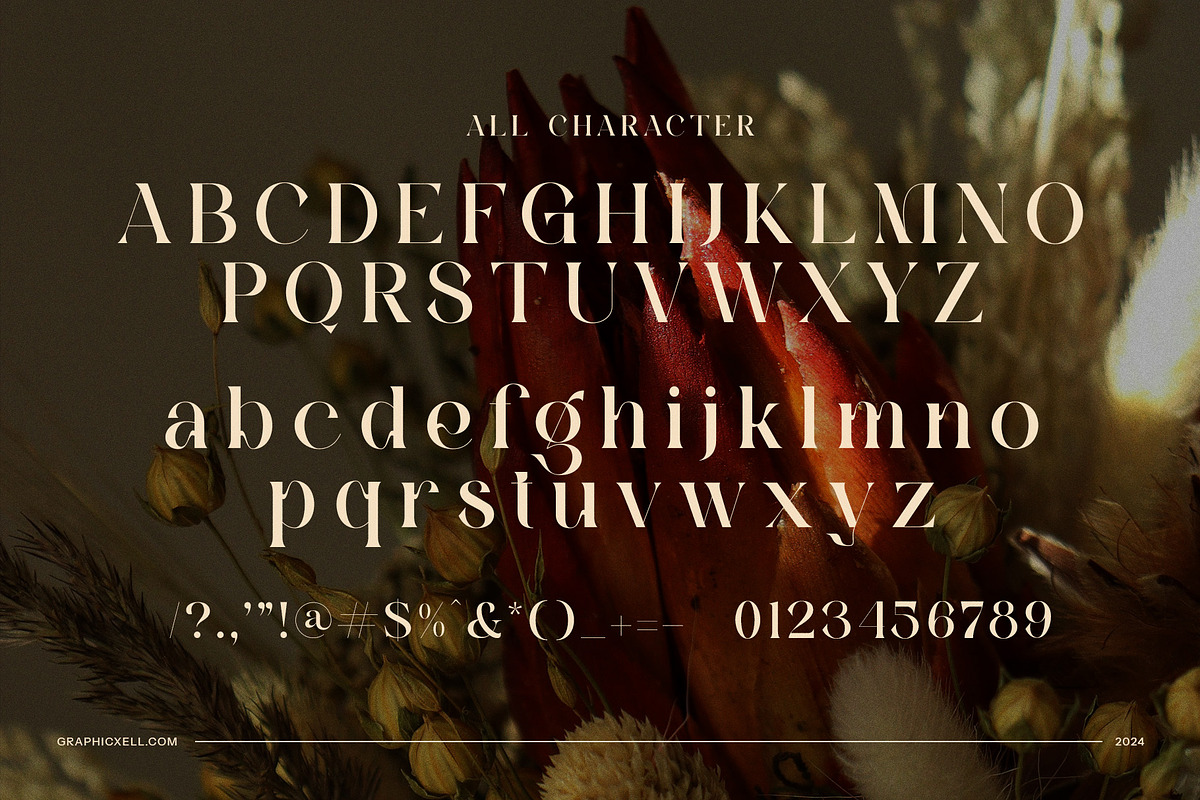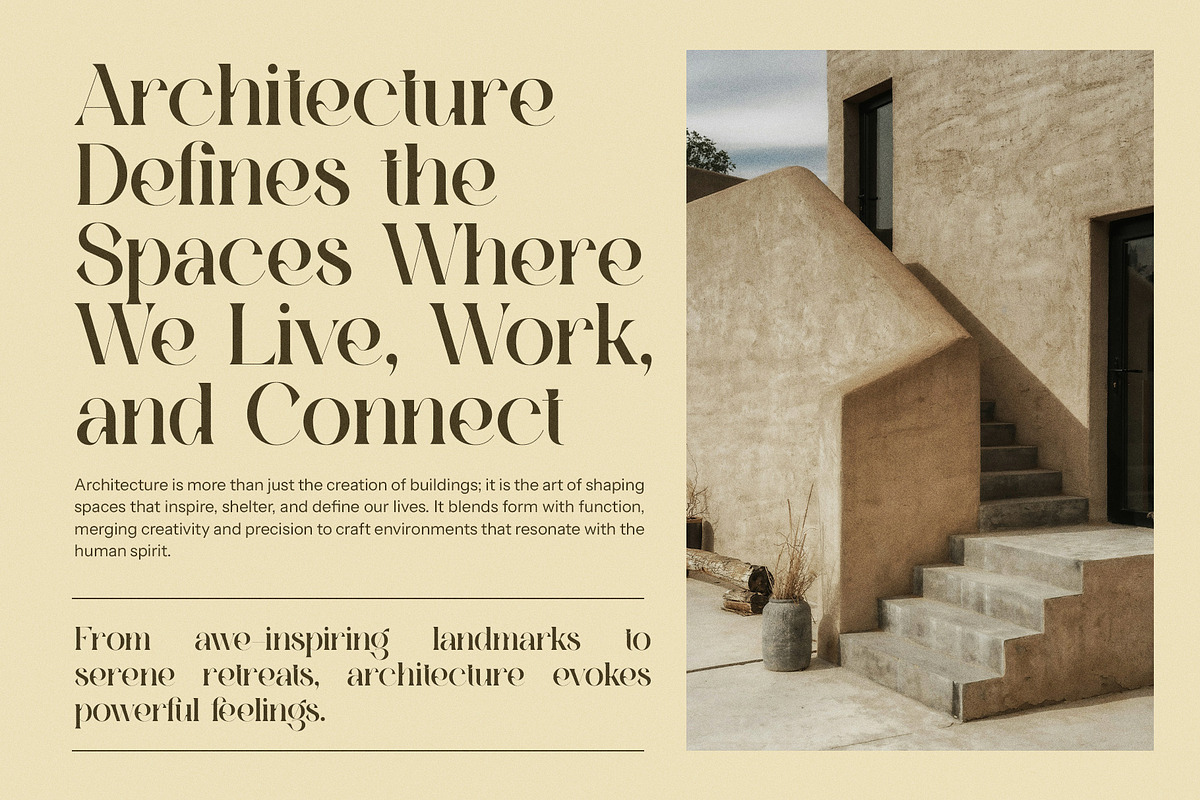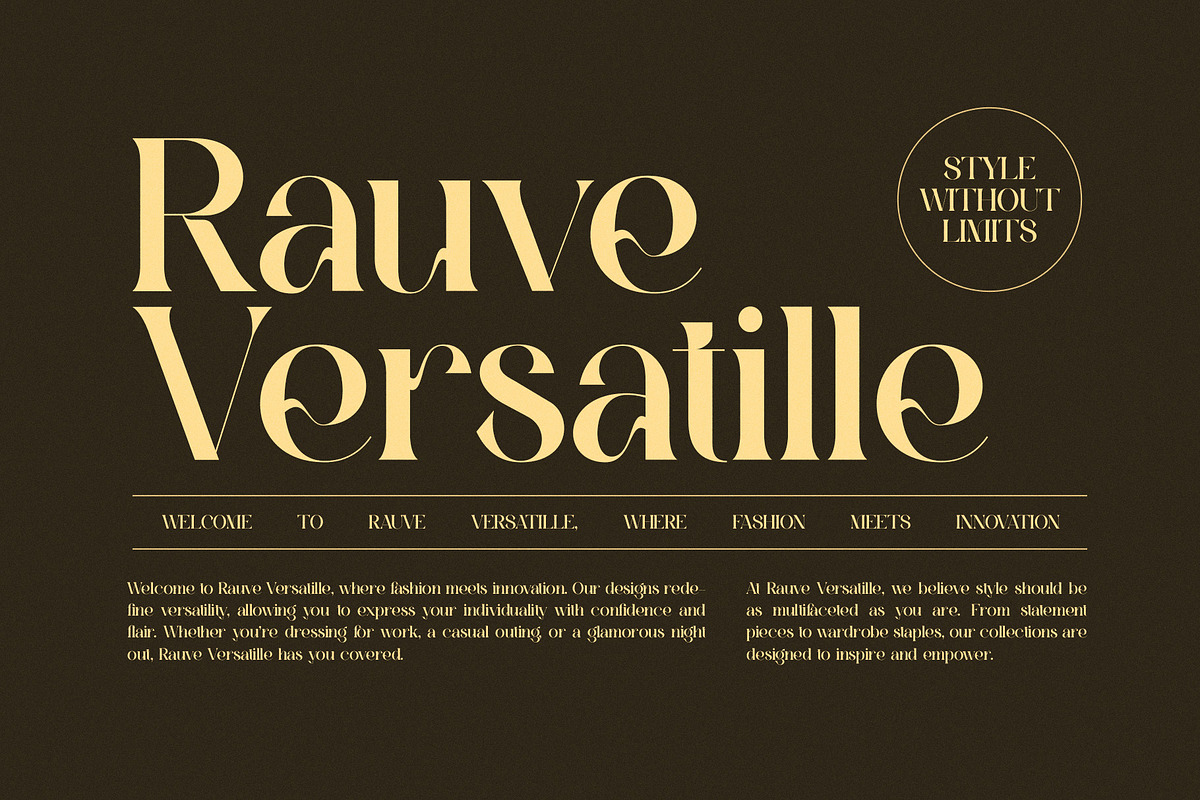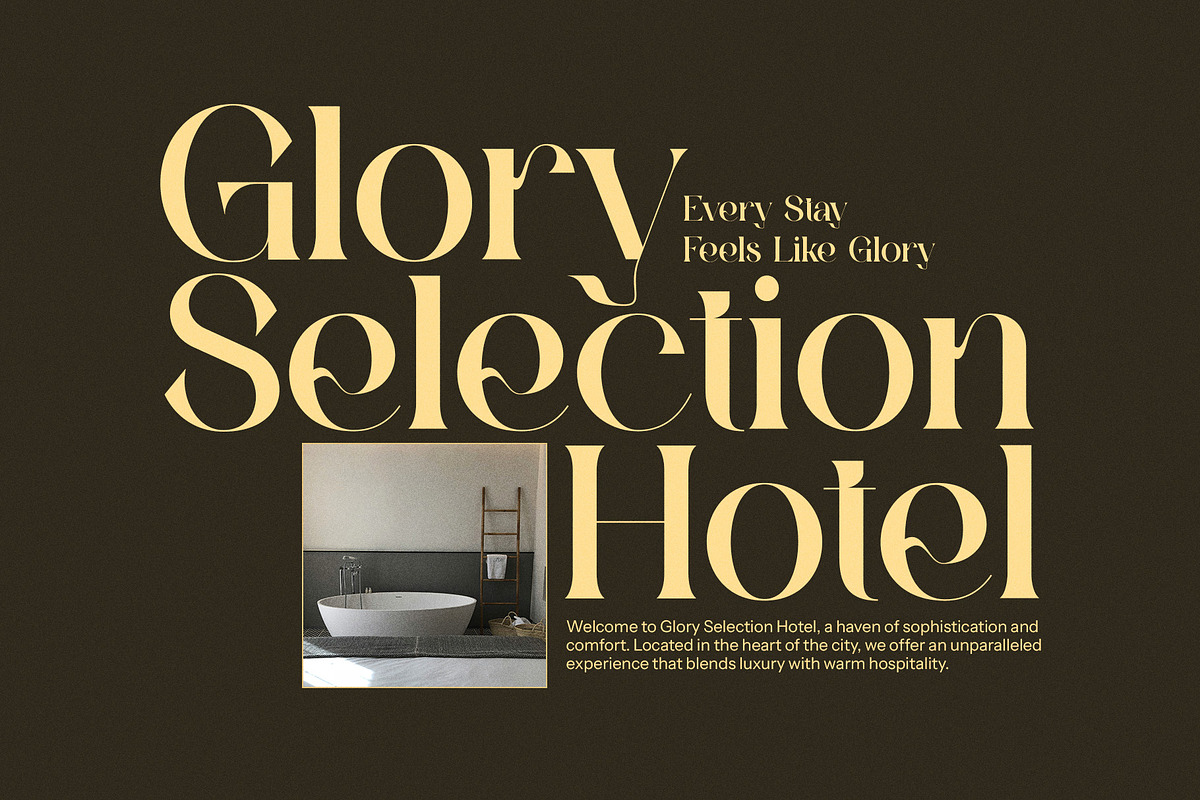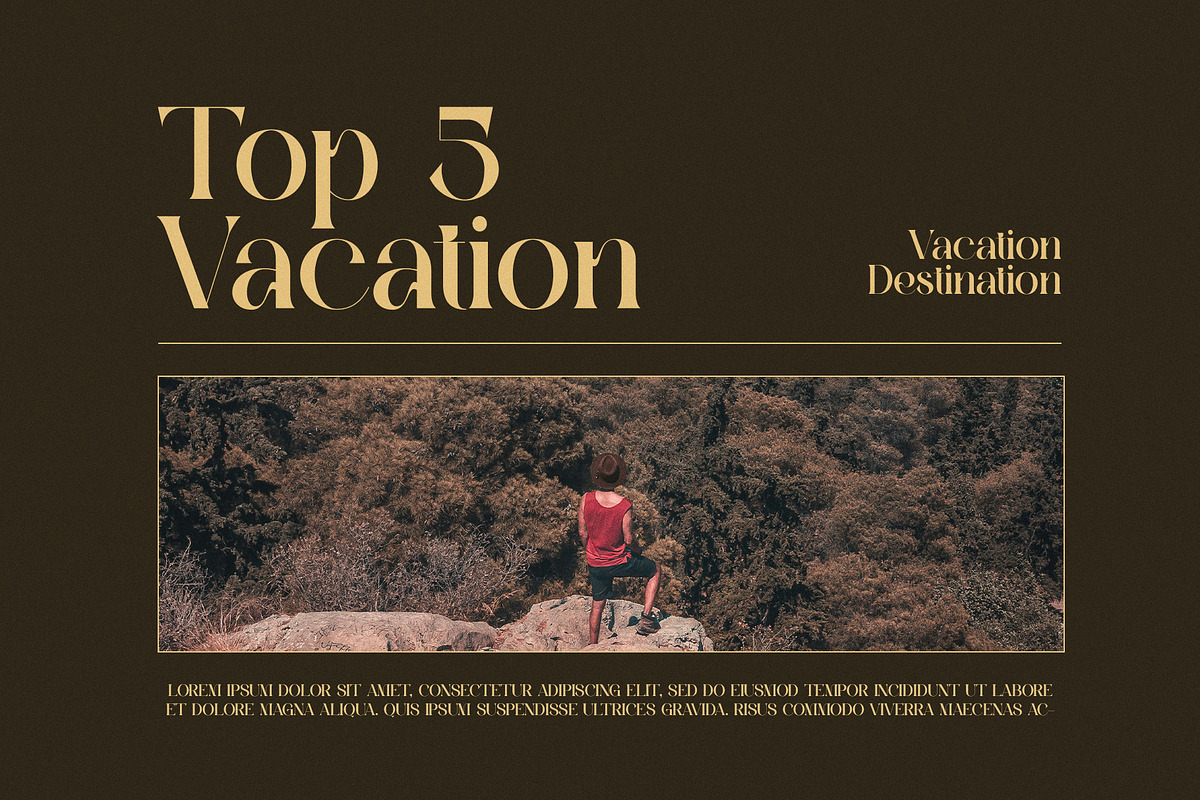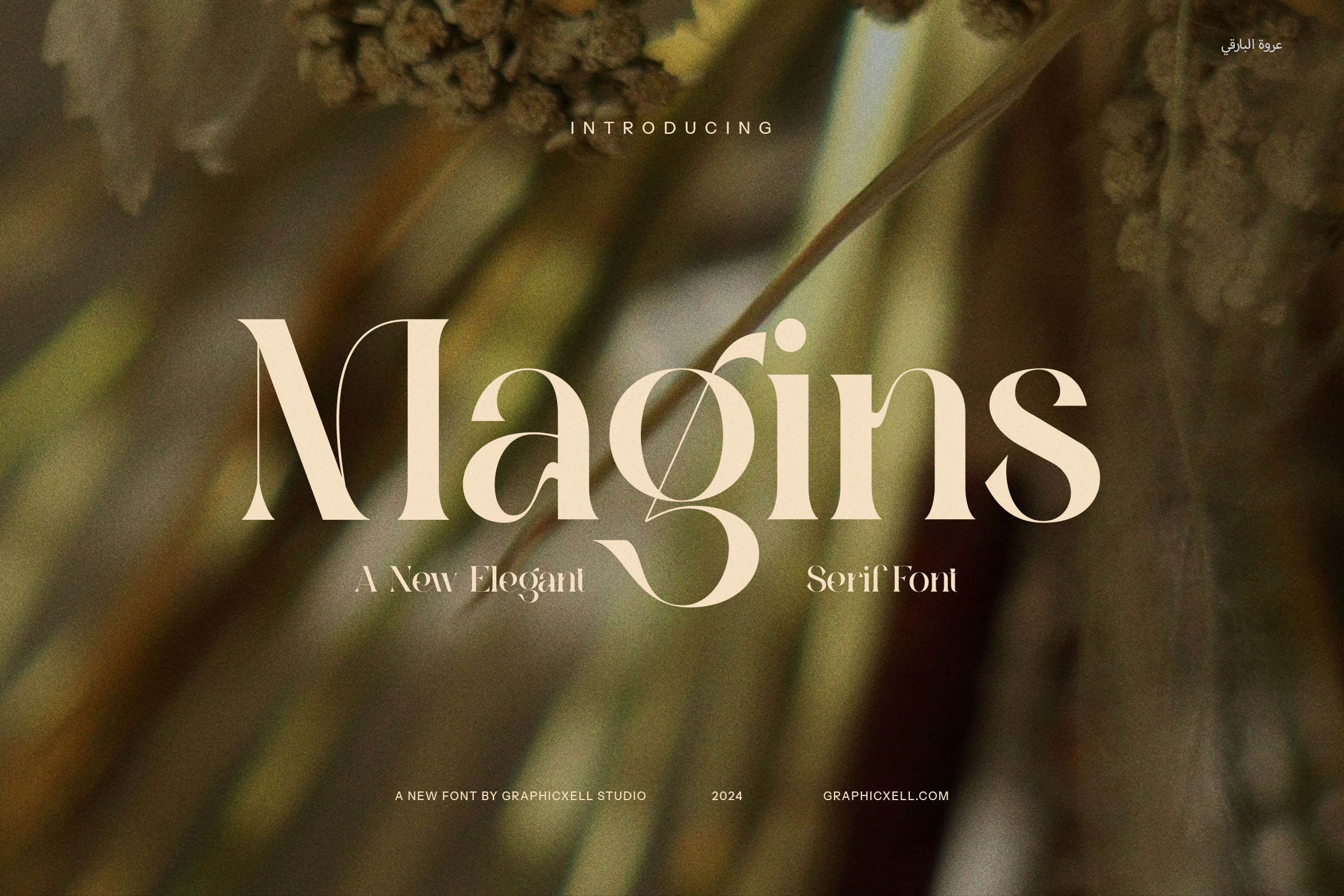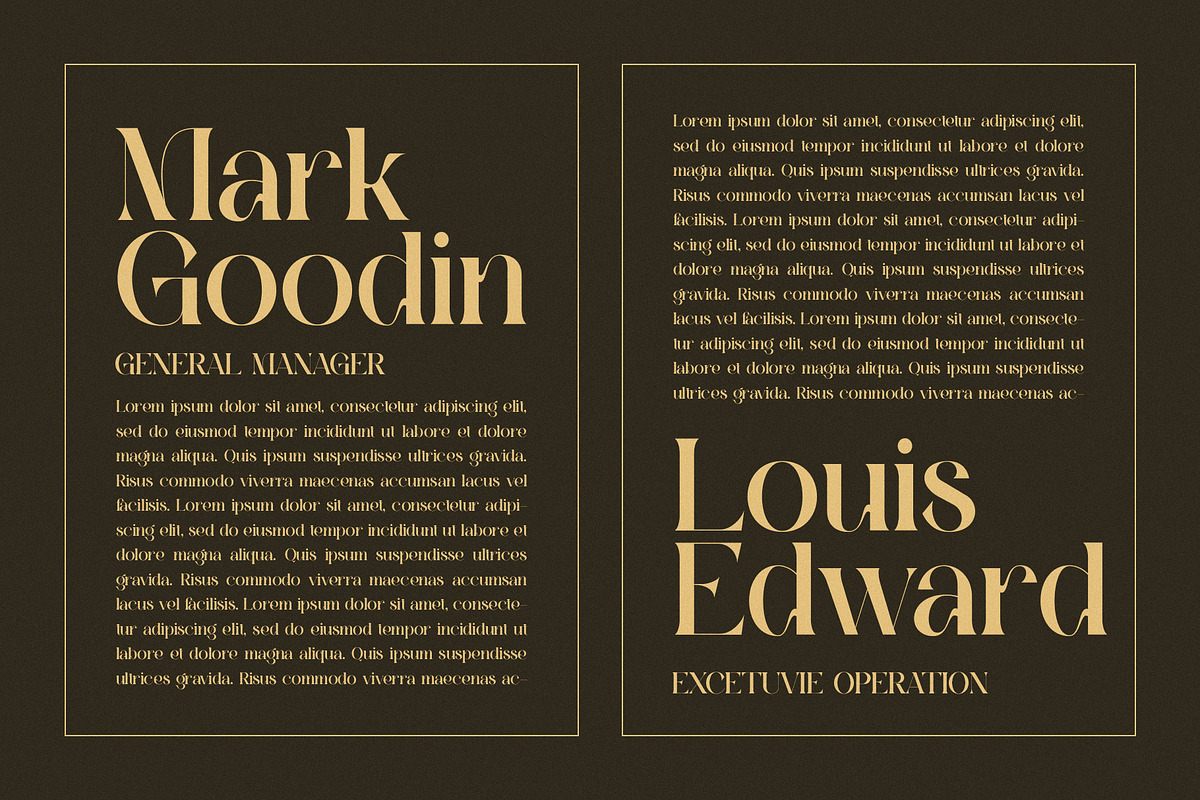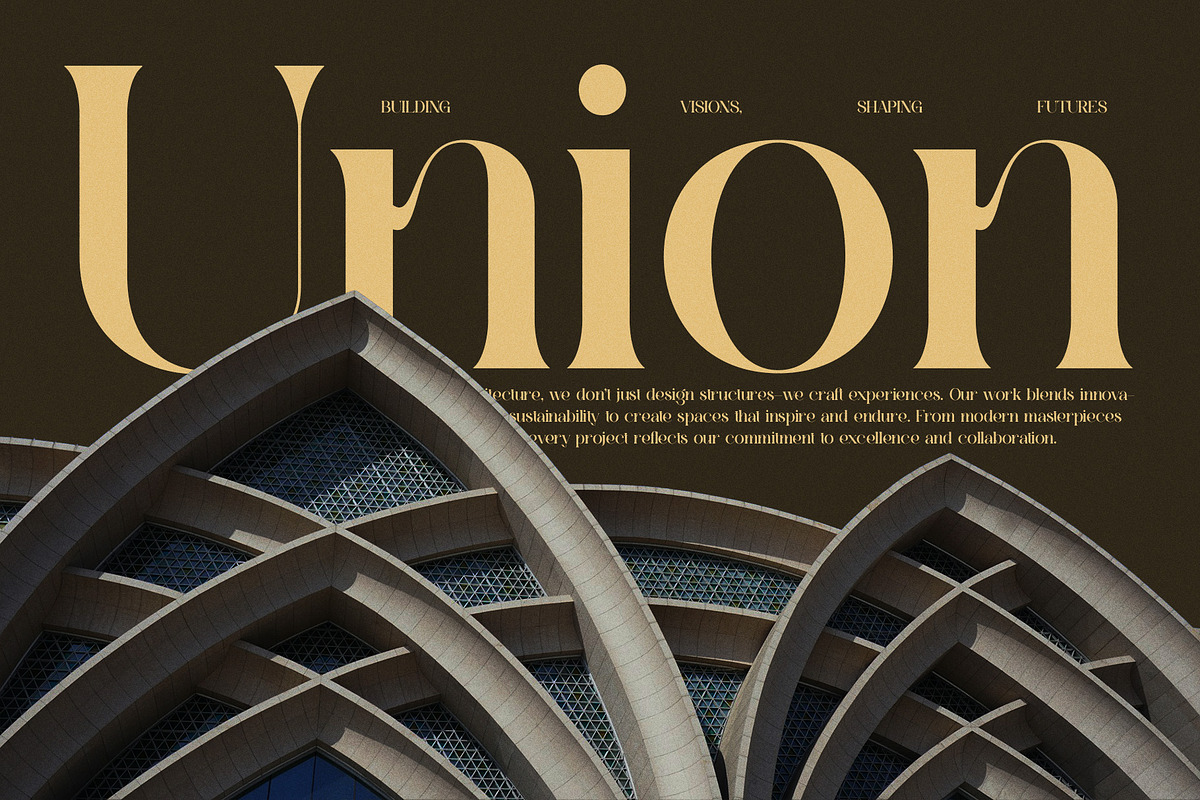
Magins Vintage Serif Font
Magins Vintage Serif Font is a beautifully crafted typeface that combines vintage charm with timeless elegance. With its classic serif design and unique character details, Magins evokes a sense of nostalgia while maintaining a refined and sophisticated appearance. Its vintage aesthetic makes it the perfect choice for projects that require a touch of history and heritage, yet still demand a modern, polished look.
Ideal for logos, branding, and advertising, Magins brings a sense of old-world craftsmanship to contemporary designs. Its distinctive letterforms add character and personality to any project, making it an excellent choice for boutique brands, luxury product packaging, and stylish web design. Whether you're designing for magazines, food labels, or any project requiring a sophisticated yet approachable style, Magins ensures that your designs stand out with grace and originality.
This font’s versatility shines through in various applications. Its vintage appeal makes it a perfect fit for nostalgic-themed designs, while its elegant serifs keep it timeless and classy. Whether you are creating an elegant brand identity or an eye-catching magazine layout, Magins delivers both beauty and readability, ensuring your message is communicated effectively.
Magins Vintage Serif Font is the perfect blend of past and present, making it a versatile and powerful tool for designers. Whether used in print or digital formats, this font brings a unique, elegant flair to any design, helping to capture the attention and admiration of your audience.